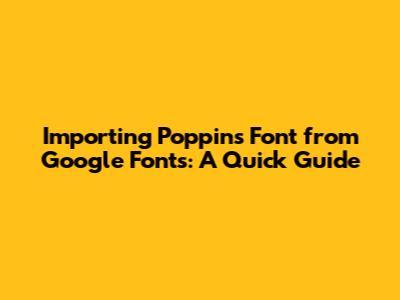
Importing Poppins Font From Google Fonts: A Quick Guide
So, you're looking to import the Poppins font from Google Fonts? Awesome! Poppins is a fantastic, versatile font that works well for a variety of projects, from websites to presentations to print materials. This guide will walk you through the process step by step, making it super easy to get Poppins up and running in your design or development environment. Let's dive in, guys!
Why Choose Poppins?
Before we get into the how-to, let's quickly touch on why Poppins is such a popular choice. Poppins is a geometric sans-serif font known for its clean, modern, and readable design. Its simplicity makes it incredibly versatile, working equally well for headings and body text. It's also a Google Font, which means it's free to use and easy to implement in web projects. The balanced letterforms and multiple weights offer a lot of flexibility, allowing designers to create visually appealing and functional designs. Plus, its wide character support ensures it looks great in multiple languages. For user interfaces, Poppins offers a crisp and contemporary aesthetic, making it a favorite among web developers aiming for a sleek, user-friendly experience. Choosing Poppins can instantly elevate your project, giving it a professional and polished look that resonates with modern design sensibilities. This font family’s extensive range of weights, from thin to black, gives you precise control over the visual hierarchy and emphasis within your text, something essential for crafting engaging content. Its geometric structure, inspired by early 20th-century typefaces, provides a sense of order and clarity, ensuring your message is conveyed effectively. In branding, Poppins can establish a clean and contemporary identity, projecting a sense of trustworthiness and innovation. The font's global appeal makes it an excellent choice for projects targeting diverse audiences. When paired with other fonts, Poppins complements them without overshadowing, maintaining readability and visual harmony. It is a go-to choice for designers who want a font that is both functional and aesthetically pleasing, ensuring your project stands out with a touch of modern elegance and clarity. In essence, Poppins isn’t just a font; it's a design asset that can significantly improve the overall quality and impact of your work.